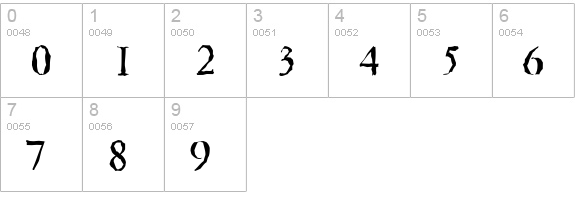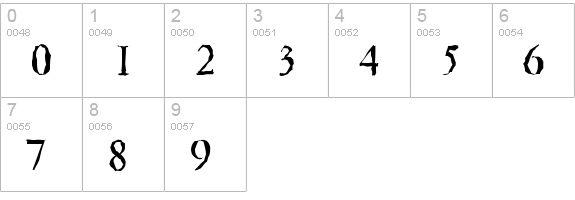
GarfeldRandom Font Details
GarfeldRandom font is a whimsical and playful typeface that adds a touch of fun to any design project. With its unique and quirky letterforms, this font is perfect for creating eye-catching headlines, posters, and invitations. The irregular shapes and uneven spacing give GarfeldRandom a hand-drawn look that exudes creativity and charm. Best of all, GarfeldRandom is available for free download at FontsMarket.com. Whether you're a designer looking to add a touch of personality to your work or just someone who loves experimenting with different fonts, GarfeldRandom is a great choice. Download it today and let your creativity run wild with this delightful typeface.